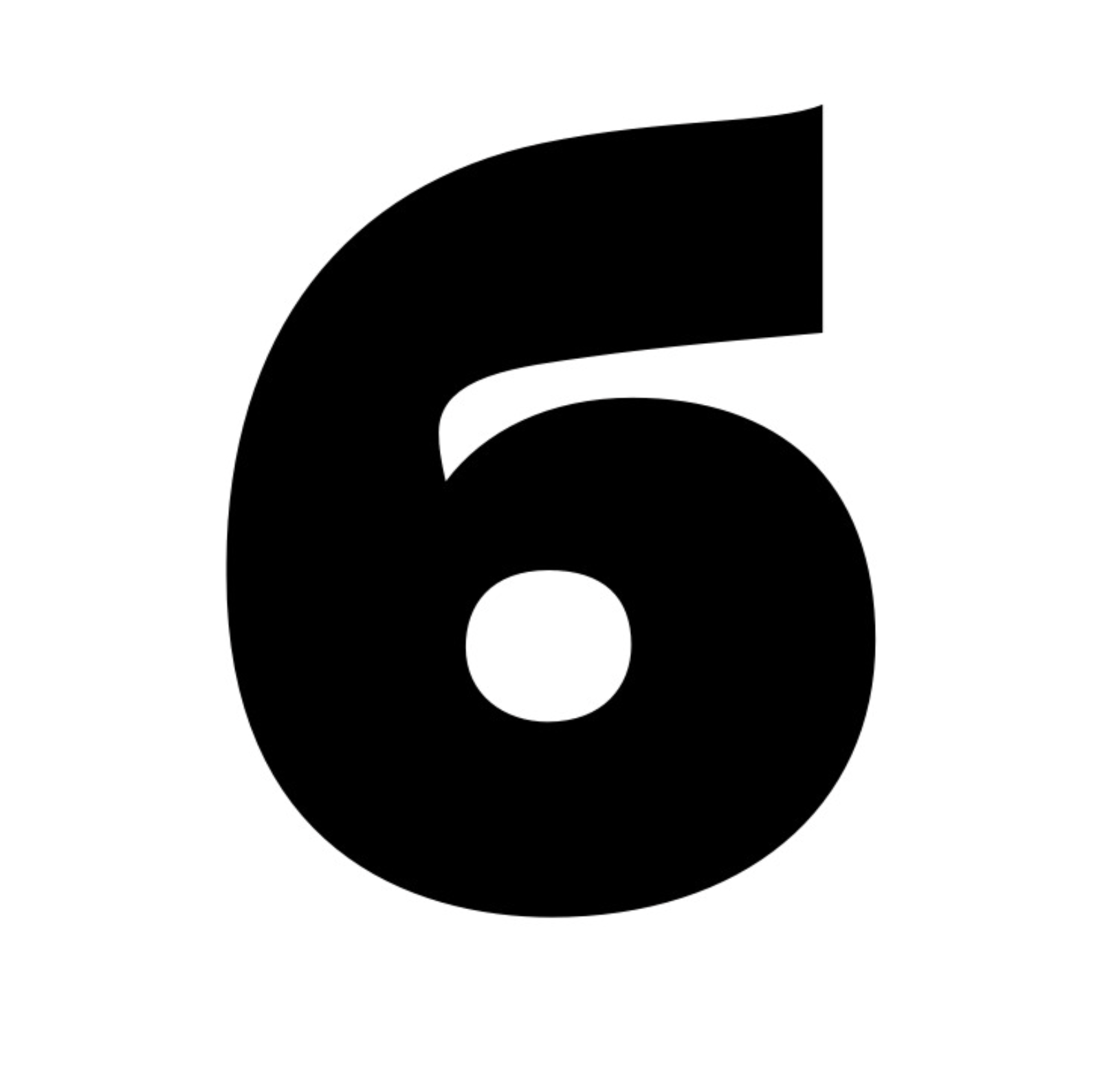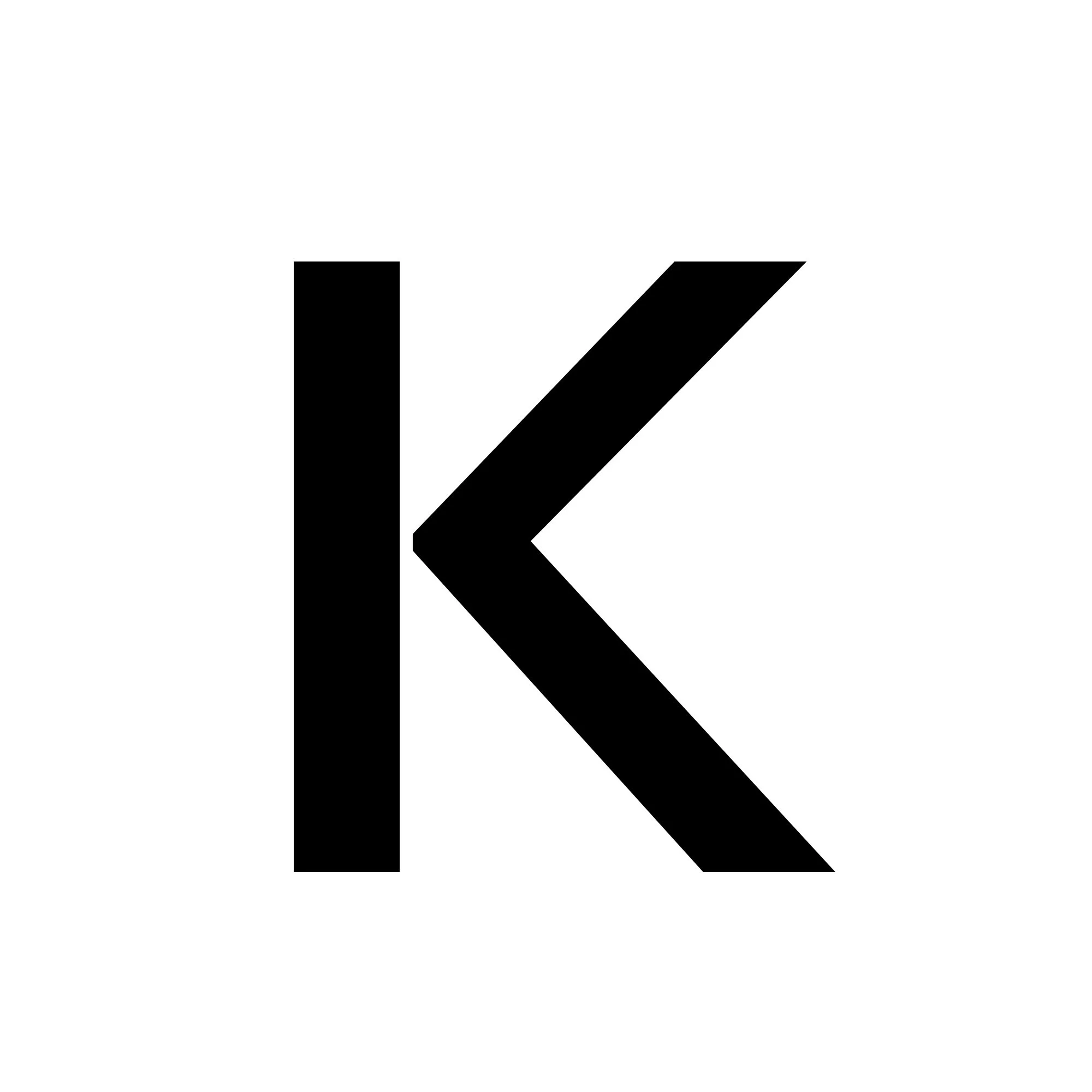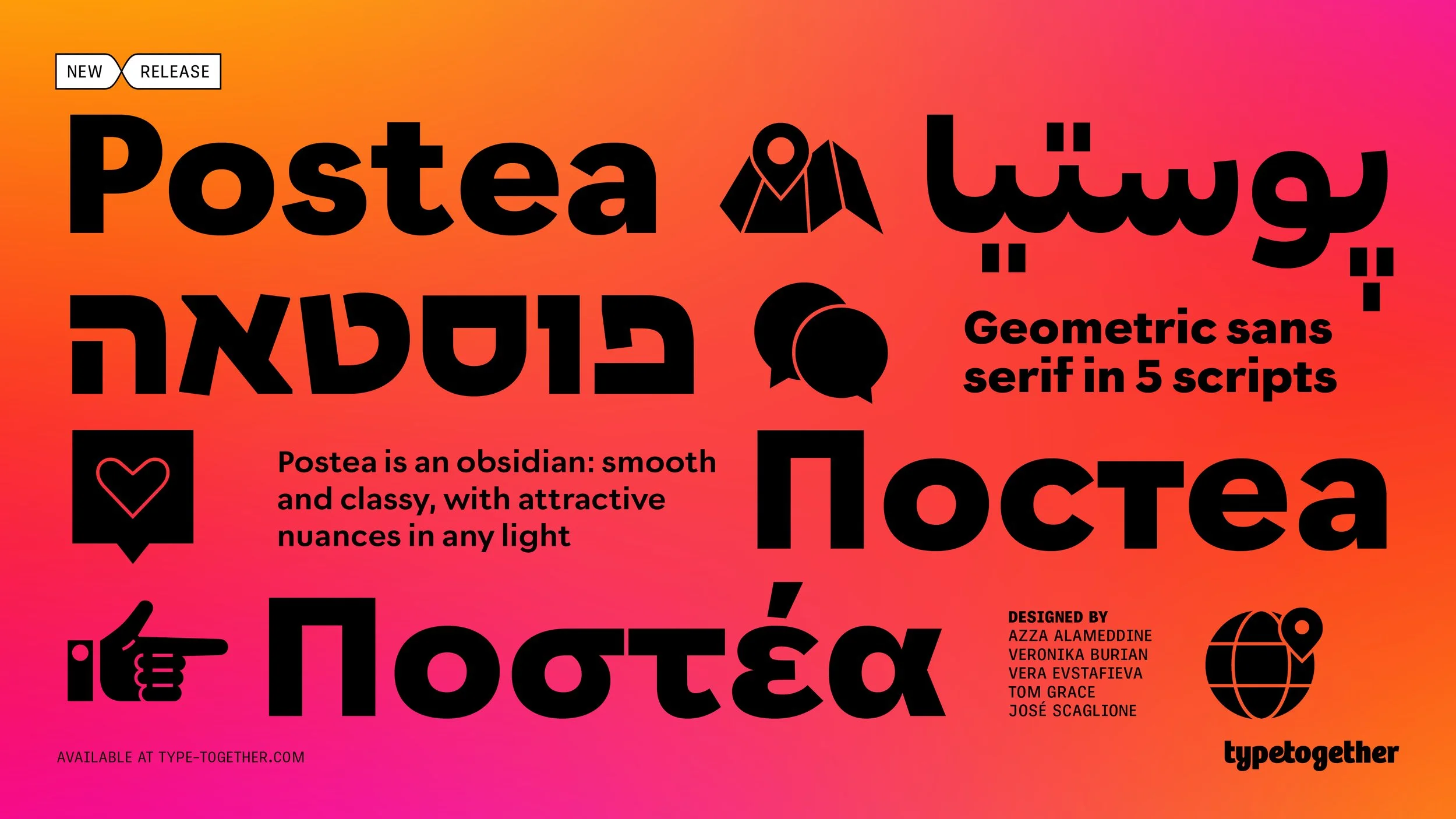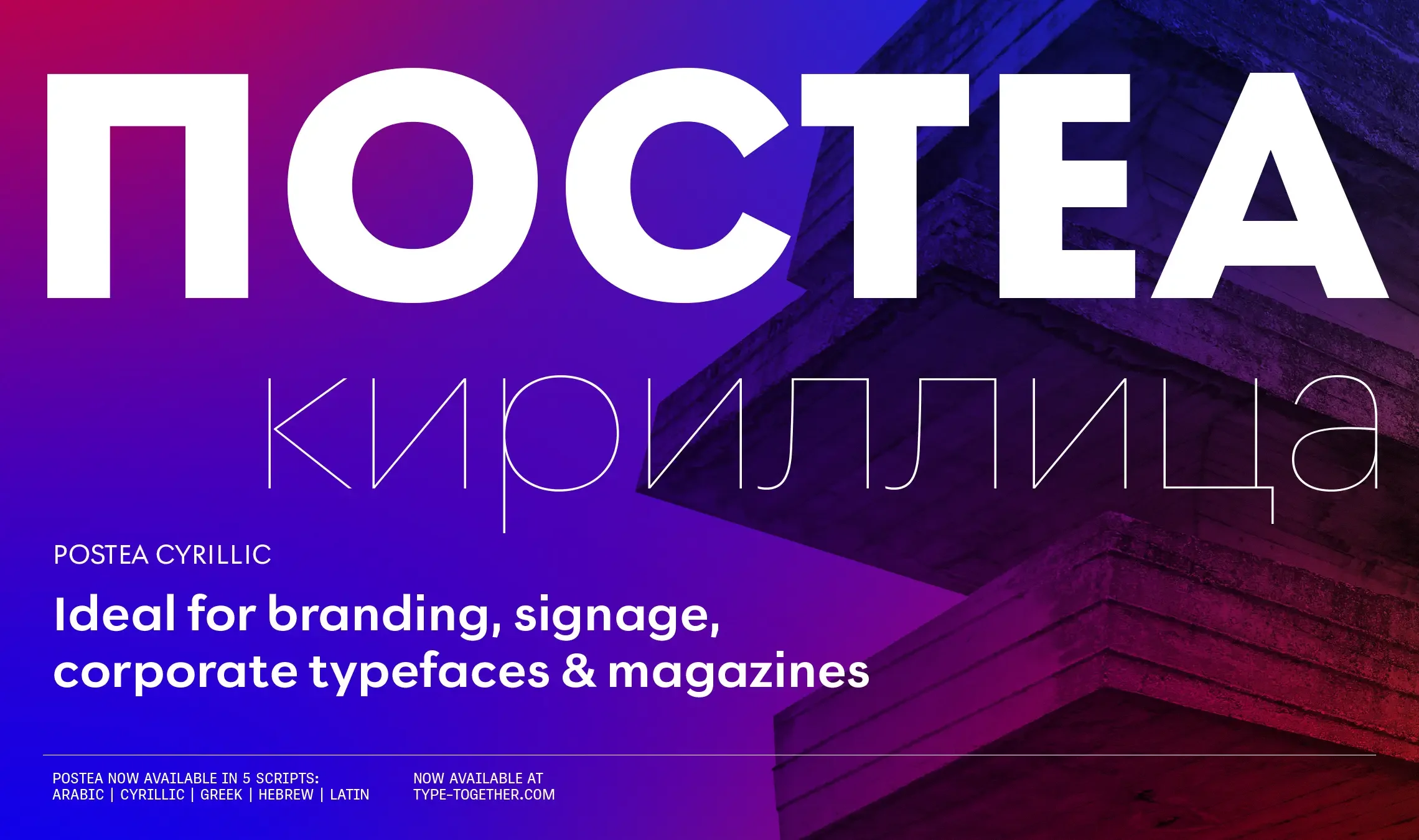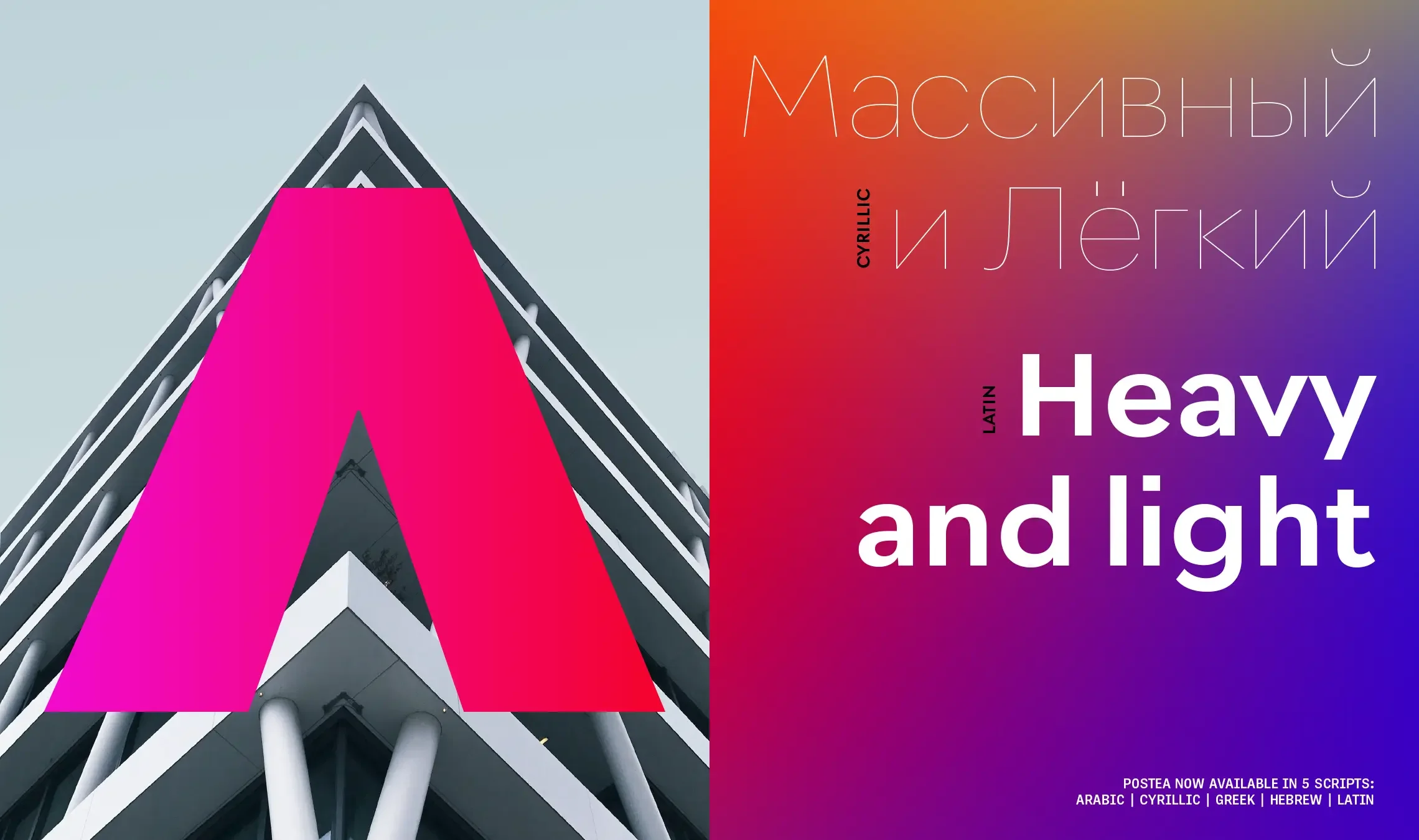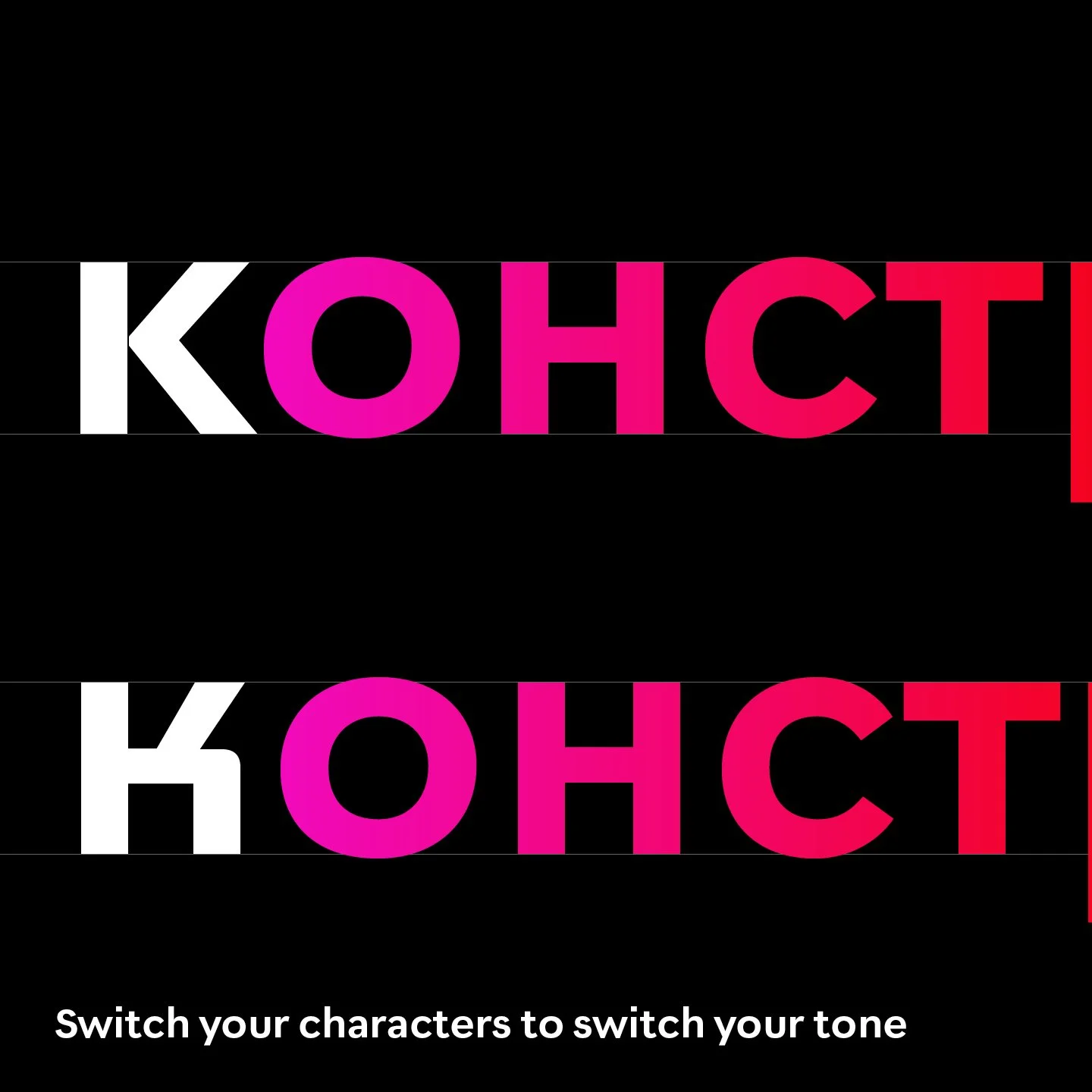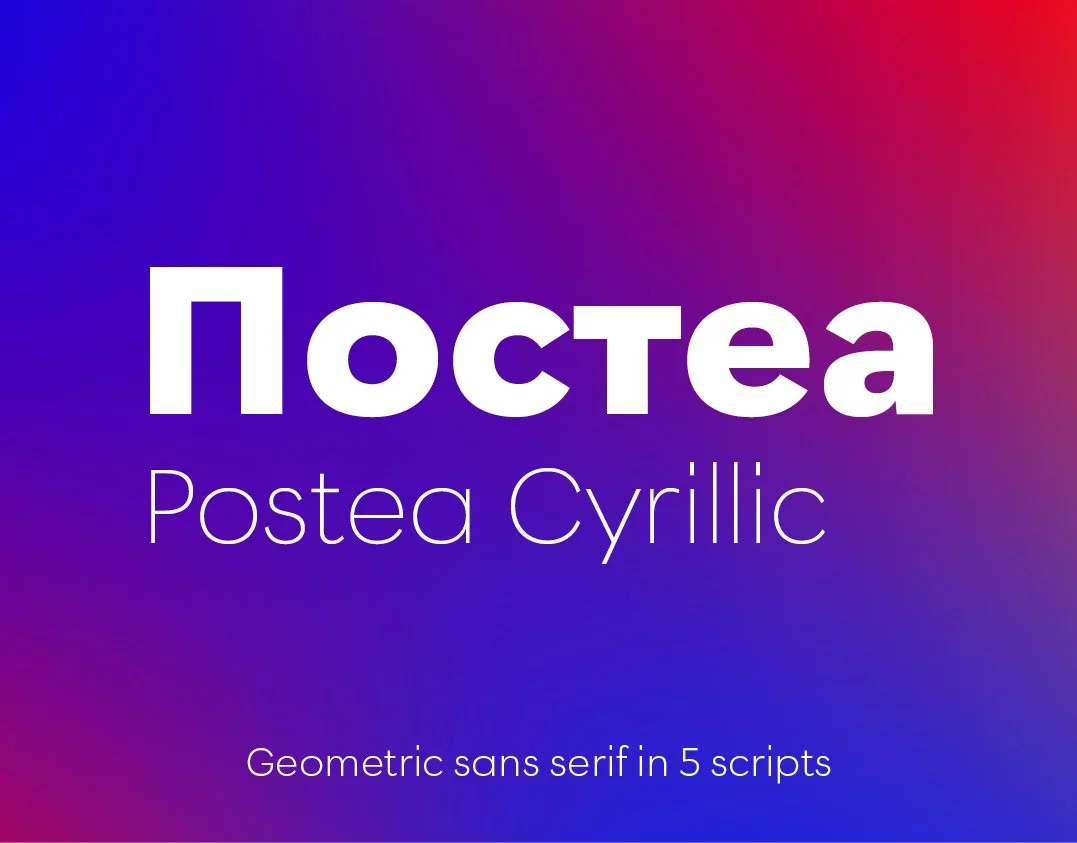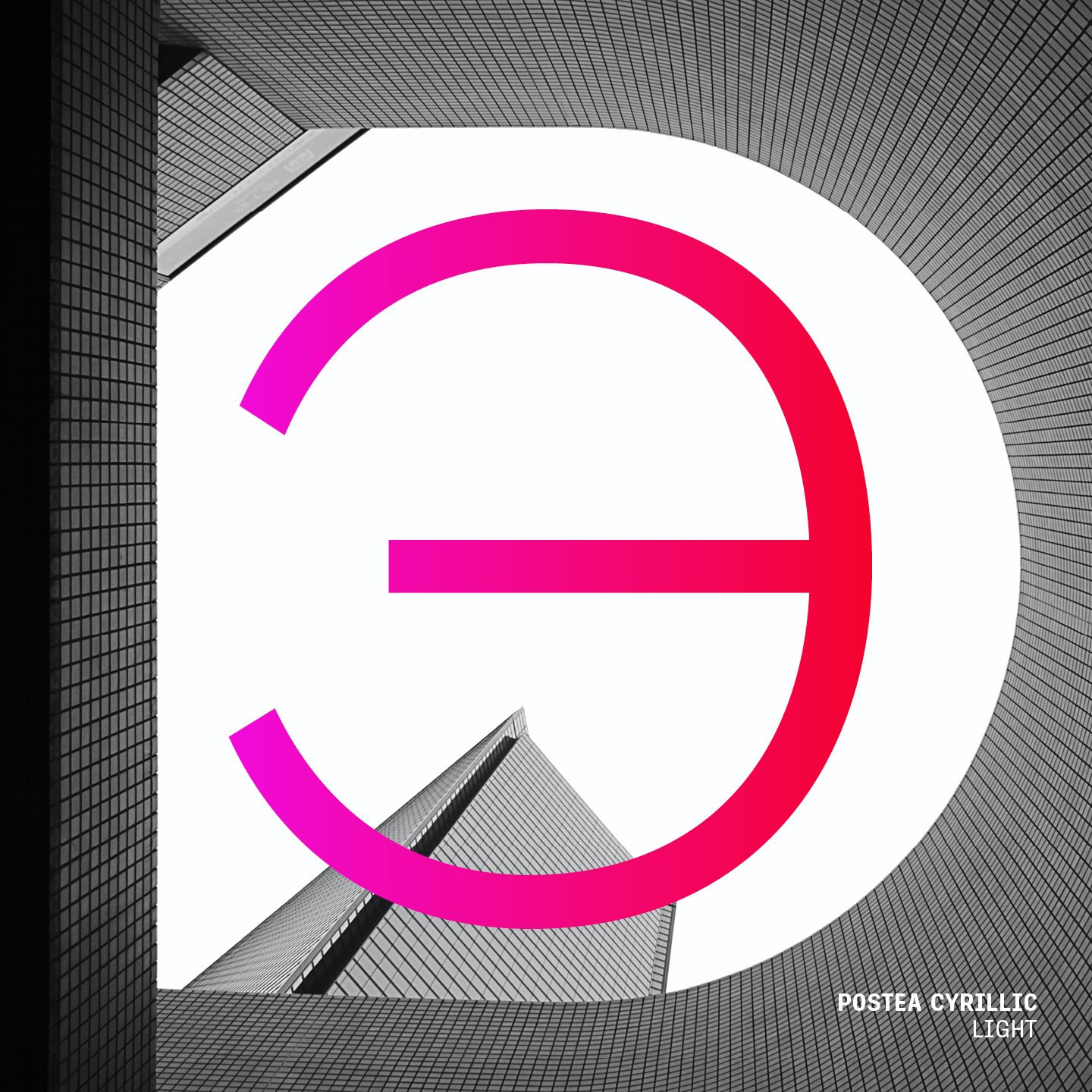
Postea Cyrillic. 2024
Postea Cyrillic is part of a multiscript family born of the classic midcentury values of simplicity and impact. It bestows distinction and liveliness into branding, signage, corporate typefaces, and magazines across five global scripts.